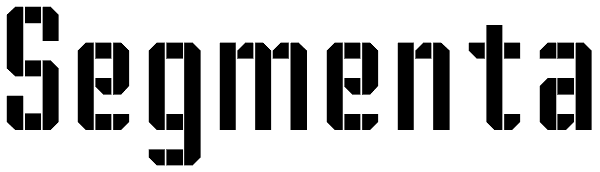
Segmenta
Segmenta, a sans serif typeface developed from the gridbased type of the Hamburg S-Bahn (metro). The type is originally used for diplaying informations about the trains. The typeface contains all accents and special letters for extended latin and...